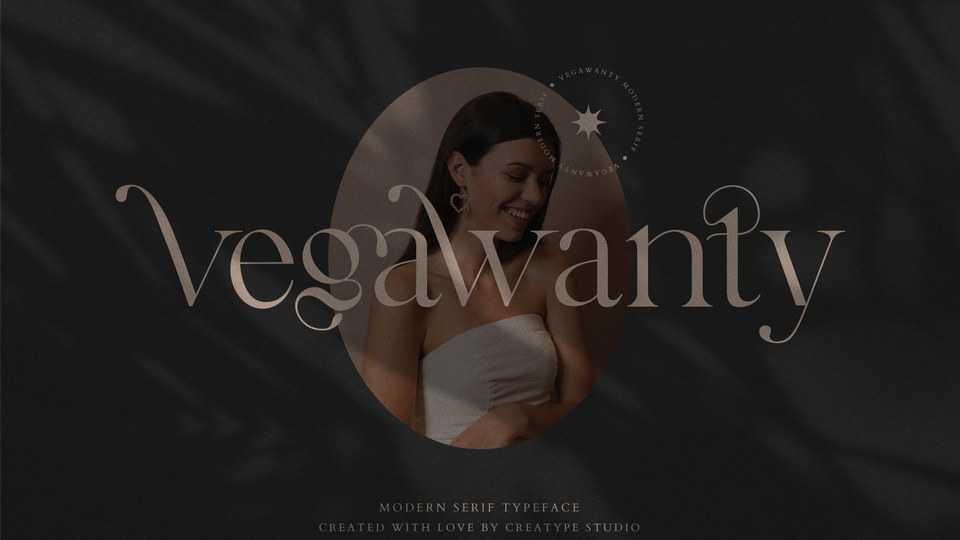
Download Vegawanty font, a modern serif typeface that is truly unique and stylish. Its delicate appearance makes Vegawanty look very elegant and classy.